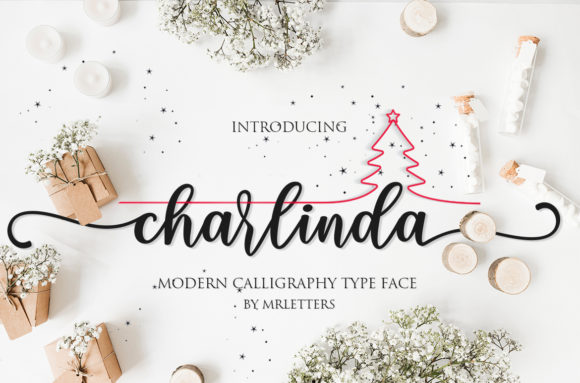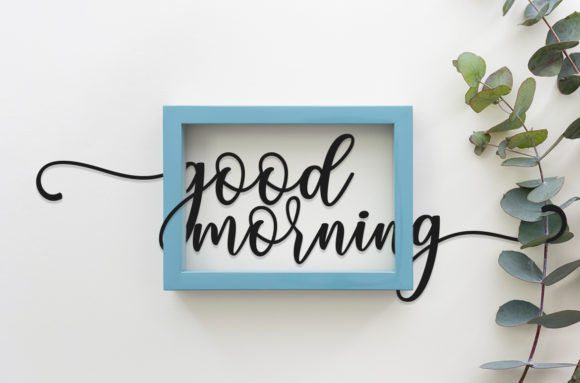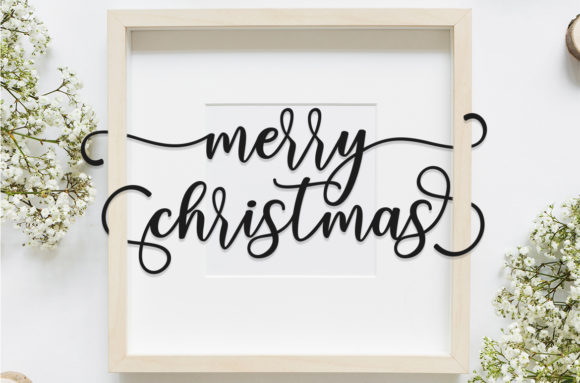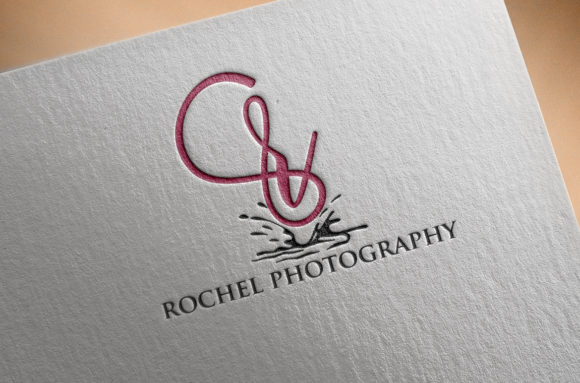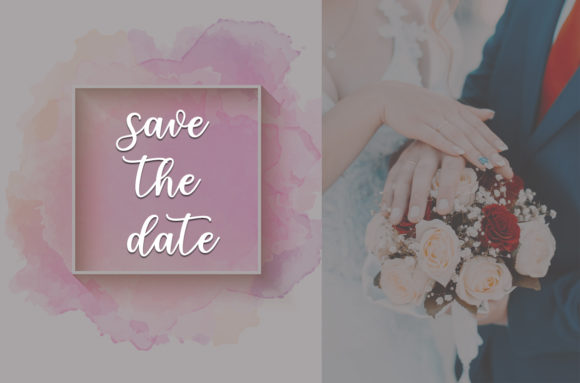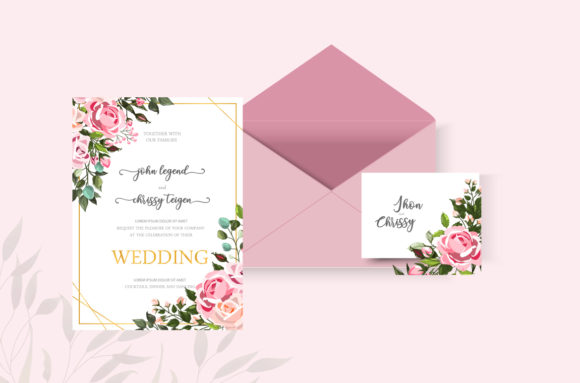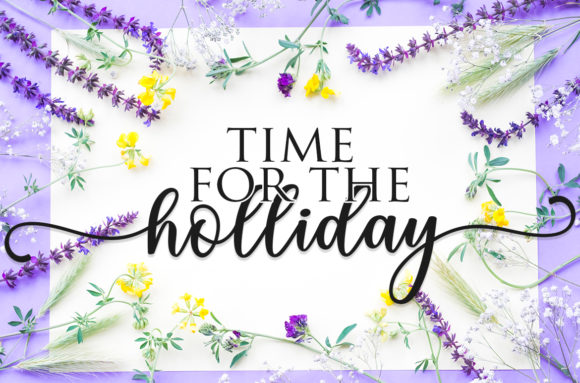
Charlinda Font
Charlinda is a sweet and friendly script with smooth lines. It’s a classic crafting font, perfect for quotes, branding, invitations, and many more occasions!